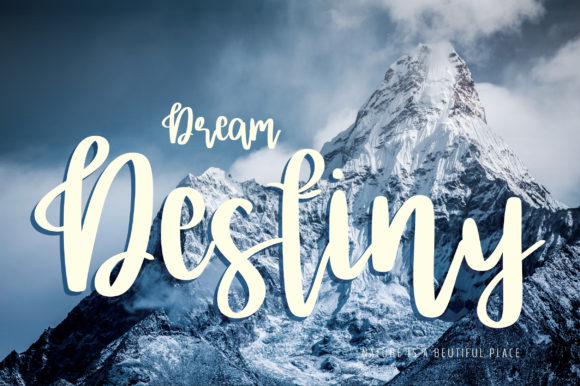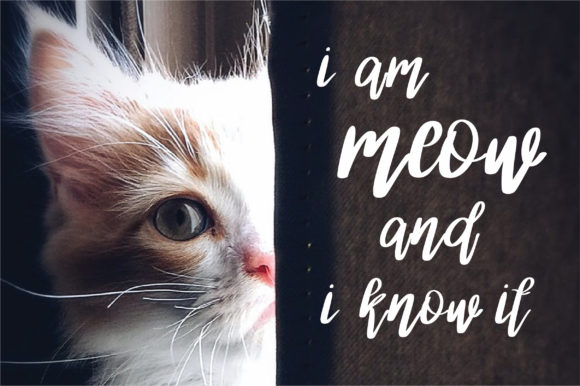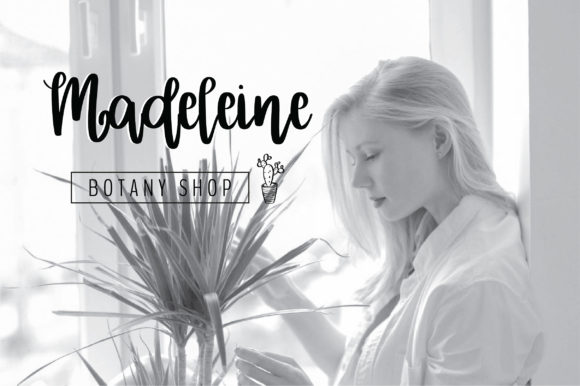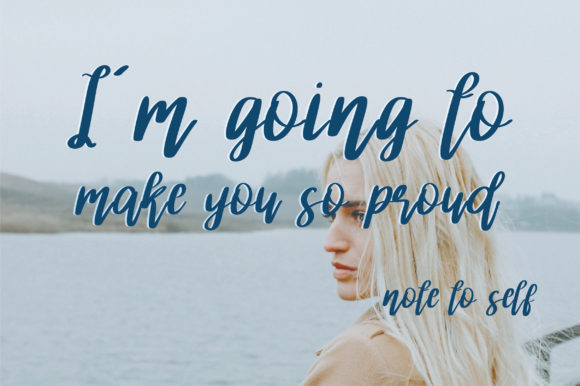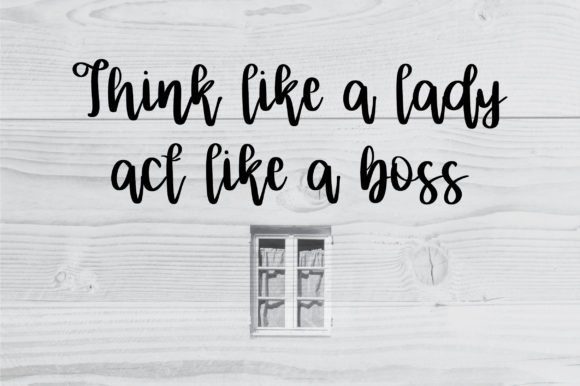
The Power of Versatility: Unleashing Creativity with Elisa Font
Have you ever found yourself staring at a blank canvas, eager to bring your design vision to life, but struggling to find the perfect font to match your creative intent? This is a moment many designers can relate to. The search for the ideal font can be overwhelming, but what if you had a secret weapon to simplify the process?
Meet Elisa Font, a unique script font family that offers a perfect combination of regular and italic styles. This dynamic duo allows designers to create multiple unique designs in an instant, giving you the freedom to experiment and push the boundaries of your creativity. With Elisa Font, you’ll have the versatility to tackle a wide range of design projects, from elegant invitations to modern branding materials.
Elisa Font Key Features
- Language Support: Elisa Font offers comprehensive language support, including Latin-based languages, Greek, and Cyrillic, making it a versatile choice for global applications.
- Unique Characteristics: This font features a modern, elegant design with distinctive letterforms, making it ideal for use in branding, advertising, and editorial content.
- Font Style: Elisa Font is available in a range of styles, including Regular, Bold, Italic, and Bold Italic, allowing for flexibility in typography and design.
Elisa Font Review
Overall, I’m impressed with the elegant and sophisticated design of the Elisa Font. It has a certain je ne sais quoi that makes it perfect for high-end branding and advertising. ✨
- Elisa’s refined lines and curves create a sense of sophistication and luxury.
- The font’s versatility allows it to work well in both digital and print formats.
- It’s an excellent choice for creating a strong brand identity.
- The font’s high x-height makes it easily readable, even at small sizes.
However, I do have a few concerns about the font’s limitations. ✠️
- The font may be too ornate for some designs, making it difficult to read in certain contexts.
- The weight distribution can sometimes make the font feel a bit unbalanced.
- It may not be the best choice for body text, as it can be a bit too decorative.
Overall, I think Elisa Font is a great addition to any designer’s toolkit. While it may have some limitations, its unique design and versatility make it a solid choice for a wide range of applications.
Elisa Font Practical Application Guide
The Elisa Font is perfect for:
- Packaging design
What is the recommended font size for Elisa Font?
The recommended font size for Elisa Font is between 12pt and 24pt. However, you can use it at any size, depending on your design requirements. Keep in mind that smaller font sizes may affect readability, while larger font sizes may look less elegant.